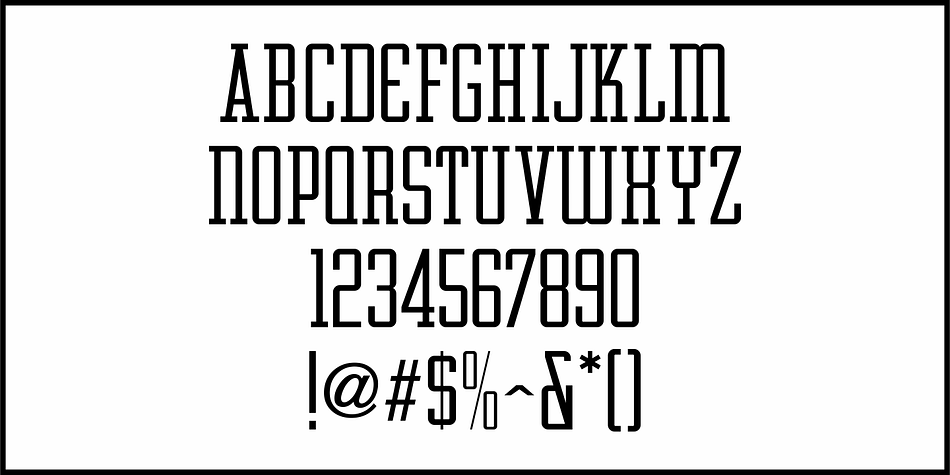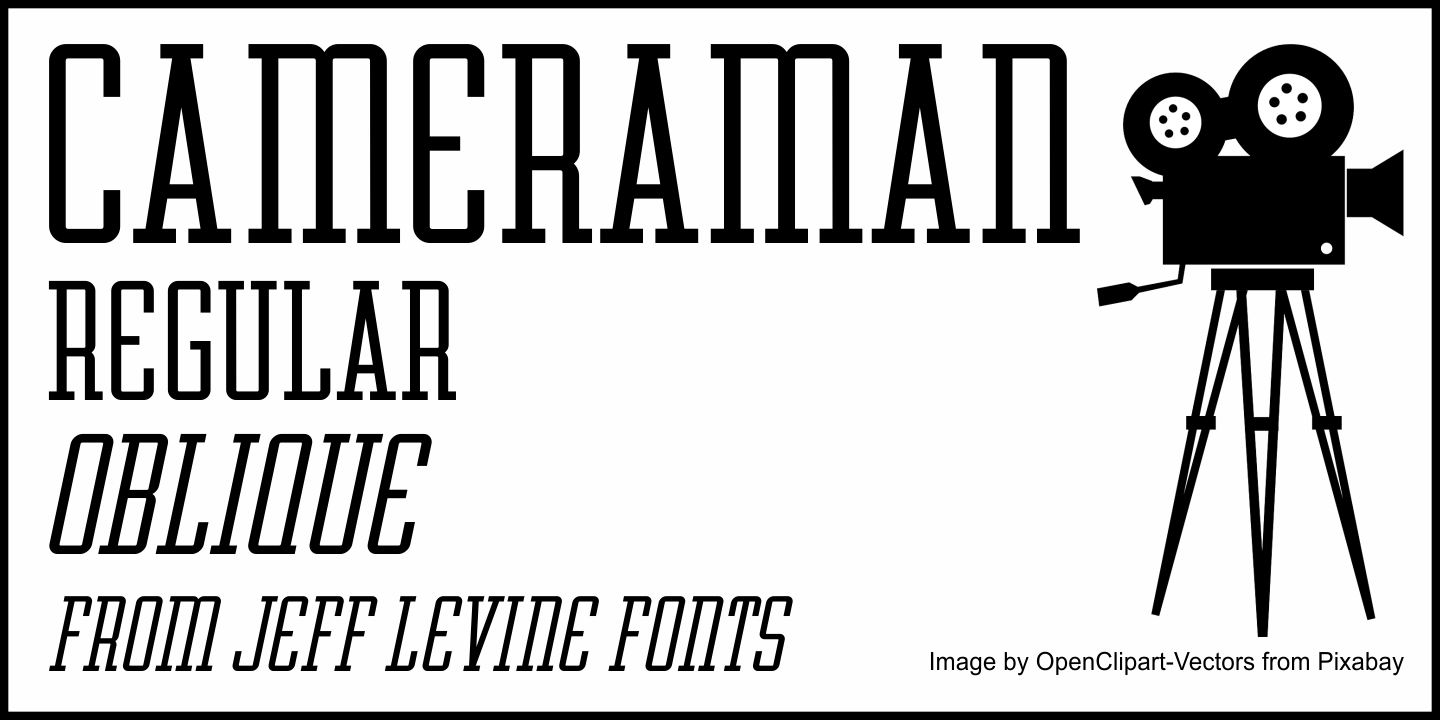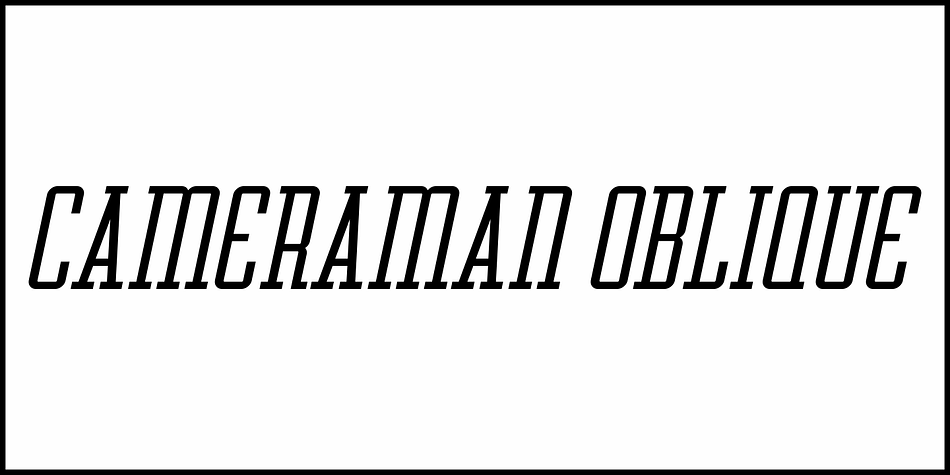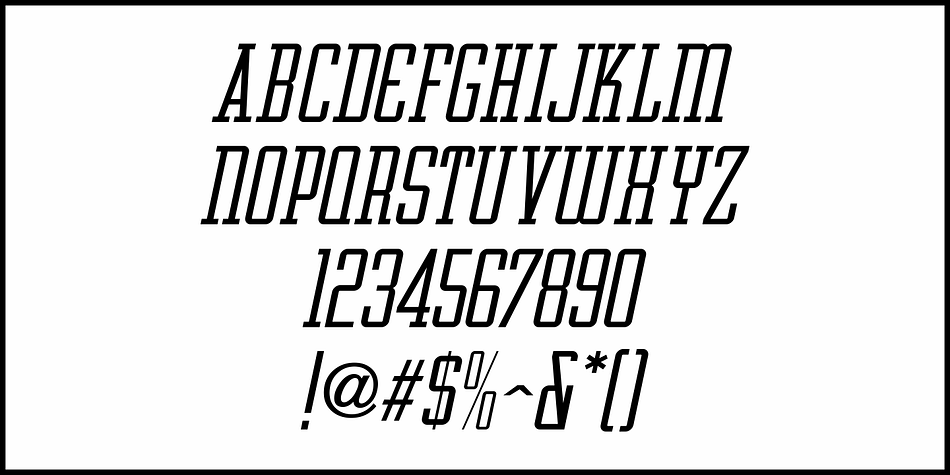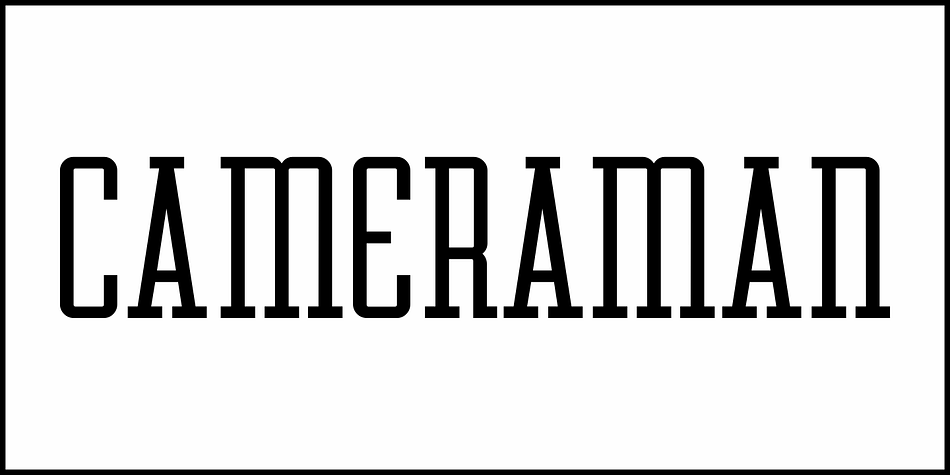
Cameraman JNL
Designed by Jeff Levine, Cameraman JNL is a display slab font family. This typeface has two styles and was published by Jeff Levine Fonts.
The hand lettered magazine’s name on the cover of the October, 1937 issue of American Cinematographer offered up another variation of the classic condensed slab serif typography popular in the 1930s and 1940s.
Art Deco in nature, it is now available digitally as Cameraman JNL in both regular and oblique versions.